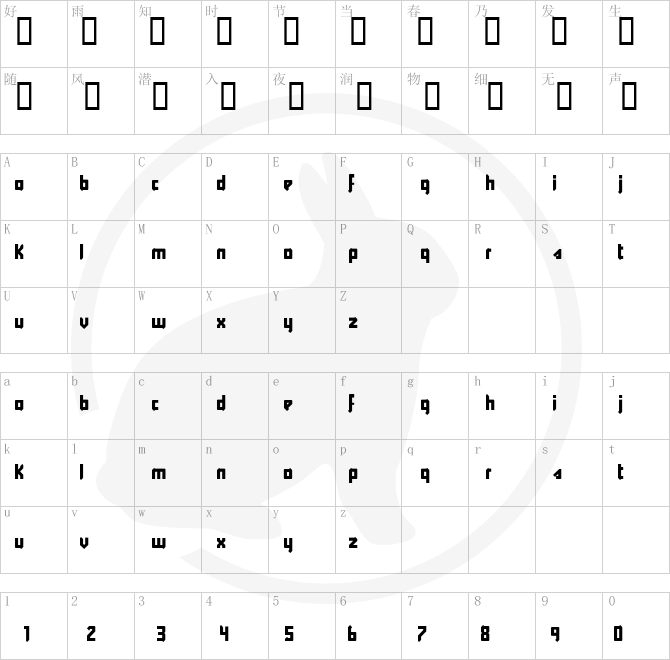
- Font Name:Y2K Friendly Future
Y2K-Friendly-Future.ttf is a very beautiful artistic font, Y2K-Friendly-Future.ttf is widely used in the design and printing of various books and pictures,Y2K-Friendly-Future.ttf has a strong visual impact,Y2K-Friendly-Future.ttf is a commonly used font in newspapers, magazines and books, and is used in posters, e-commerce Poster design, store design, logo design, font design and other fields.Y2K-Friendly-Future.